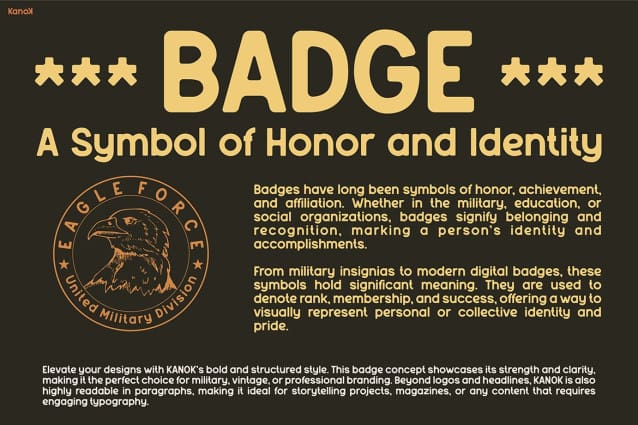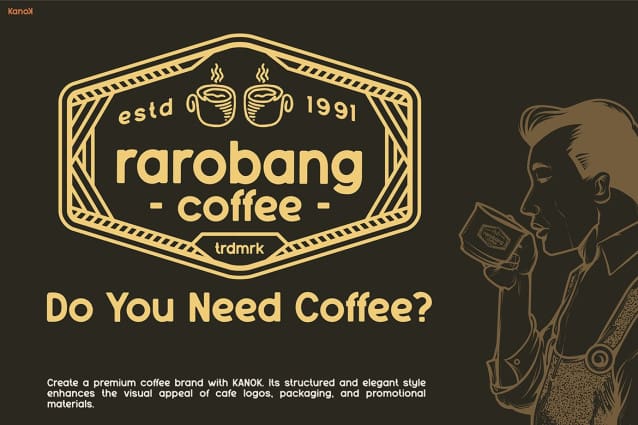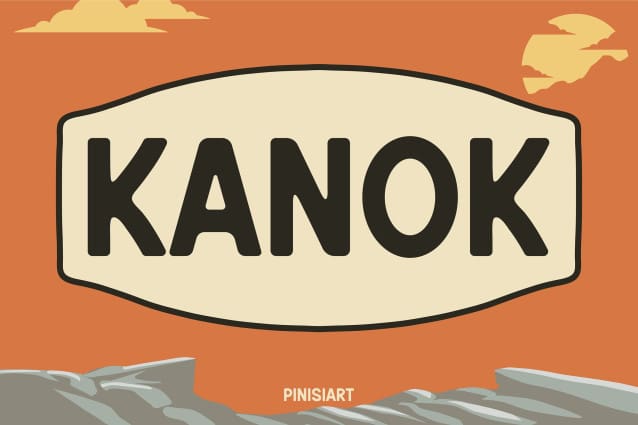
Kanok Display Font
Kanok Display Font, is a beautifully crafted typeface that embodies the spirit of vintage design. With bold, structured letterforms and a nostalgic feel, this font is perfect for projects that seek to capture a sense of history and authenticity. Inspired by mid-century typography, Kanok Display offers a classic aesthetic while maintaining modern versatility.
The font features a bold and refined style with smooth curves and sharp edges, making it ideal for designs that require both strength and sophistication. Its timeless appeal makes it suitable for branding, packaging, and editorial use. Whether applied to beer labels, restaurant menus, or vintage-themed merchandise, Kanok Display enhances the visual experience with its striking presence.
Additionally, Retro Font Kanok Display provides exceptional readability while retaining a handcrafted essence. The balance between boldness and subtle detailing makes it stand out in both digital and print formats. The seamless integration of vintage and contemporary design elements ensures that Kanok Display remains relevant across different creative projects.